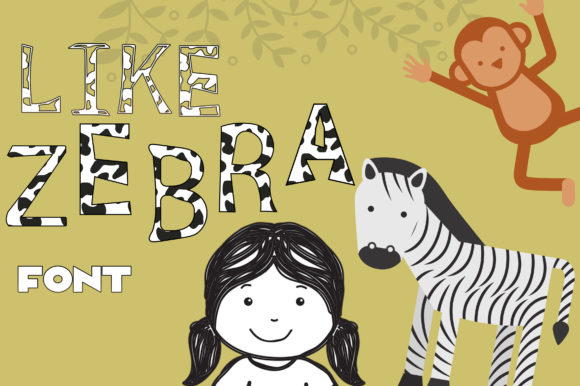
**Indulge in the Captivating Charm of Like Zebra Font: A Typographic Adventure Awaits!**
Prepare to be mesmerized by Like Zebra Font, a captivating decorative typeface brimming with playful energy and an irresistible charm. Its unique character dances across your designs, evoking a sense of childlike wonder and authenticity.
Like a vibrant zebra's stripes, this font captivates with its bold and playful curves, making it the perfect companion for any creative endeavor. Imagine your words leaping off the page, adorned with the whimsical flair of Like Zebra, leaving an unforgettable impression on your audience.
**Escape into a World of Endless Possibilities with Like Zebra Font**
Like Zebra Font breathes life into your designs, making them pop with vibrancy and imagination. Whether you're crafting invitations for a magical children's party, designing whimsical posters for school projects, or adding a touch of whimsy to your social media posts, Like Zebra flawlessly captures the essence of childlike joy.
Its playful nature knows no bounds, inspiring creativity and igniting a spark of imagination within you. Unleash your inner artist and let your designs take flight with the enchanting embrace of Like Zebra Font.
**Unleash Your Creativity with Like Zebra Font: The Perfect Choice for Young Explorers and Dreamers**
Like Zebra Font is more than just a typeface; it's a gateway to a world of endless possibilities. Its charming curves and playful spirit will captivate young minds, making it the perfect choice for educational materials, storybooks, and any project that seeks to ignite their imagination.
Imagine your children's eyes lighting up as they encounter the enchanting letters of Like Zebra Font, sparking their creativity and fueling their dreams. With this font, learning becomes an adventure, and every word carries the promise of a thrilling journey.
**Embrace the Magic of Like Zebra Font: Where Imagination Soars**
Like Zebra Font is not just a decorative typeface; it's a key that unlocks the door to a world of boundless creativity. Its playful spirit and whimsical charm will captivate audiences of all ages, leaving a lasting impression on their hearts and minds.
So, dear reader, embrace the magic of Like Zebra Font and embark on a typographic adventure that will transport you to a realm of imagination and childlike wonder. Let your designs dance with joy and authenticity, and experience the transformative power of Like Zebra Font.